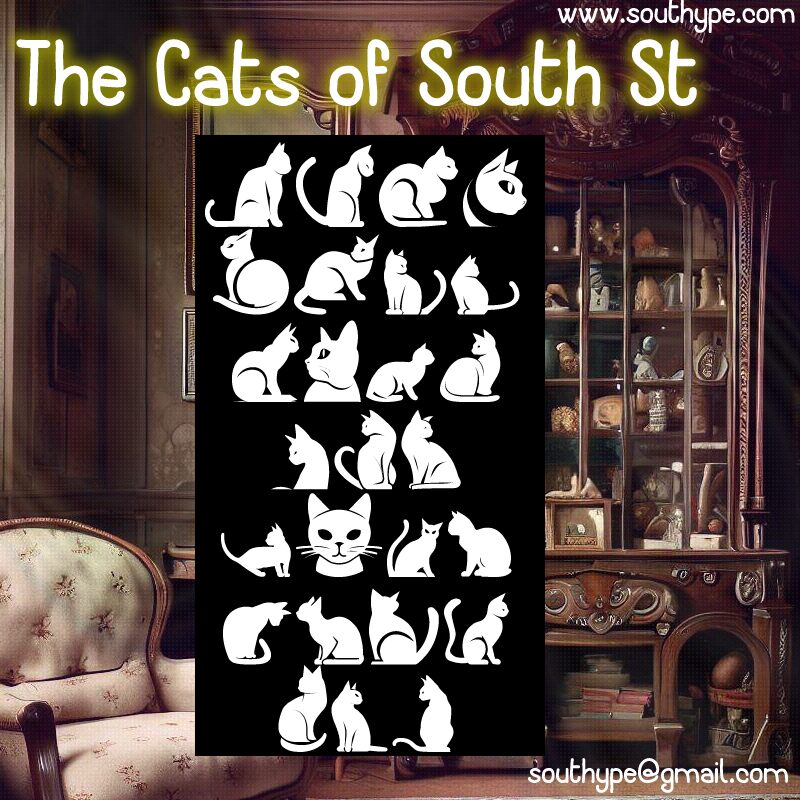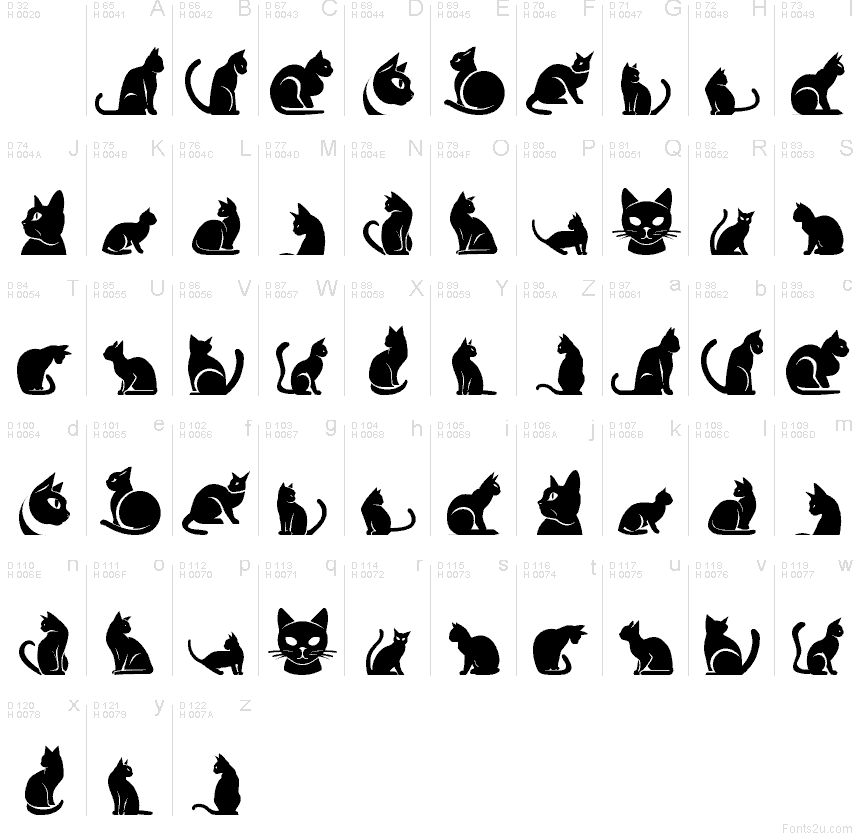
The Cats of South St
The Cats of South St font by Southype is a free animals dingbats typeface that turns a line of text into a parade of inky black cat silhouettes. Each glyph is a different pose—stretching, sitting, swishing its tail—so your designs feel lively instead of repetitive. The silhouettes are bold and clean, reading clearly even at small sizes while still feeling hand-cut and a little mischievous up close.
Using The Cats of South St font, you can instantly theme pet shop branding, veterinarian flyers, kids’ invitations, social media stickers, packaging, and zines with a cozy, feline twist. The consistent solid shapes make this free font easy to stack, tile, or frame into borders and patterns. For a simple combo, pair it with a friendly rounded sans serif and keep the cats slightly larger than your text to let their personalities lead.